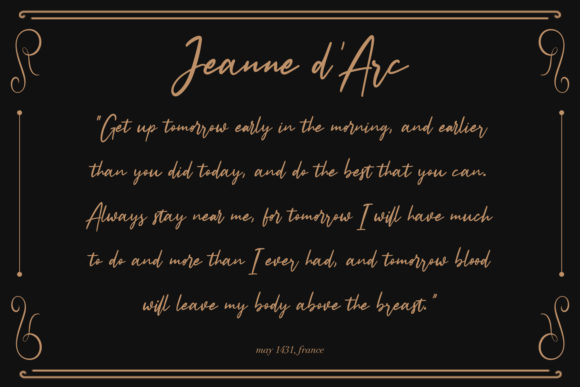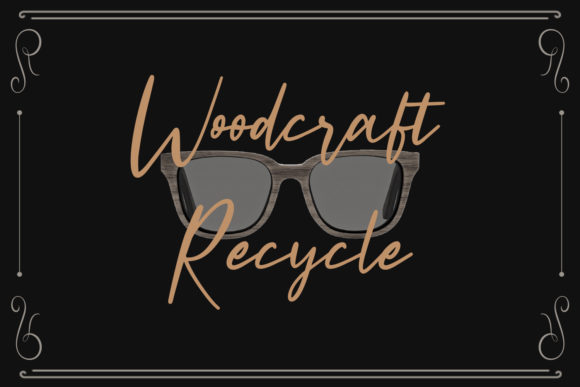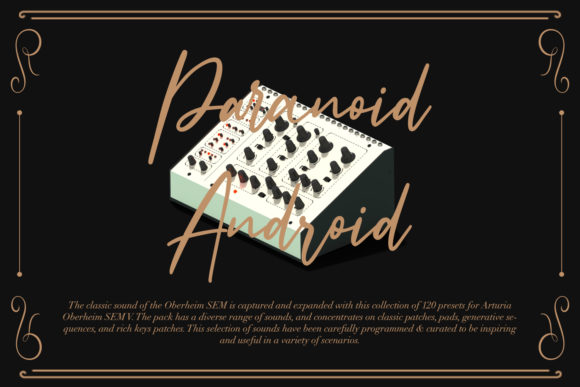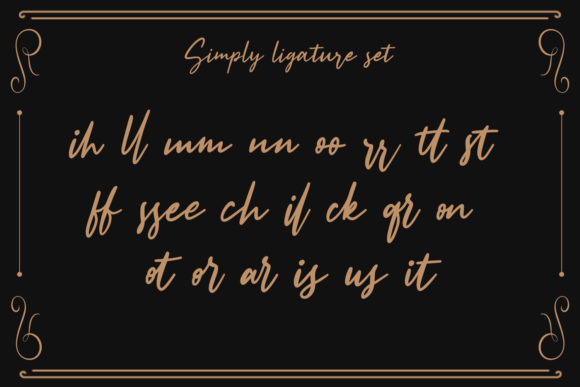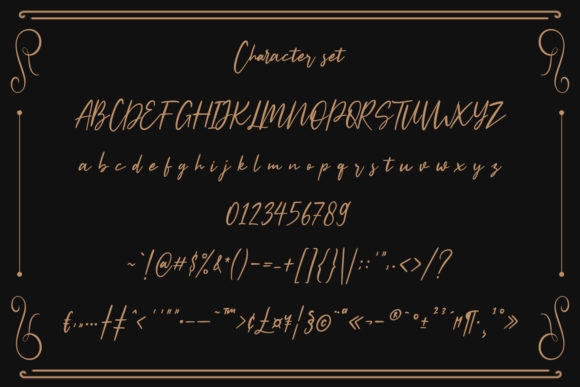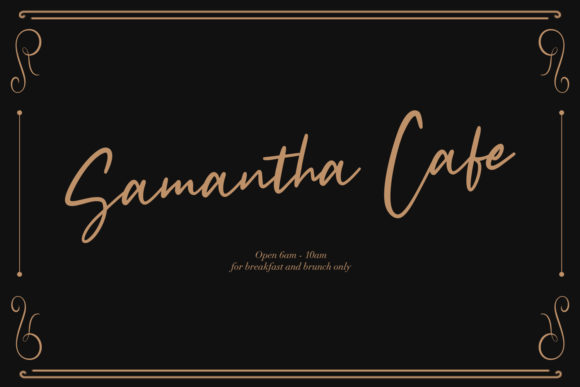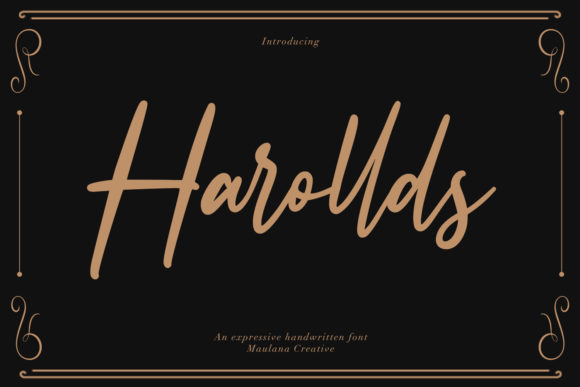
Discover the Elegance of Harollds Font: Elevate Your Designs with a Touch of Sophistication
In the world of typography, few fonts manage to convey the essence of elegance and sophistication as effectively as Harollds Font. This beautiful, handwritten font has captured the hearts of designers and crafters alike, and for good reason. With its flowing lines, stunning glyphs, and incredible versatility, Harollds Font is the perfect addition to any design project that requires a touch of class and refinement.
The Characteristics of Harollds Font
So, what makes Harollds Font so special? For starters, its varying baseline gives it a unique, organic feel that sets it apart from more traditional fonts. The smooth lines and gorgeous glyphs add to its elegance, creating a sense of fluidity and movement that is simply captivating. Additionally, Harollds Font features stunning alternates, allowing designers to add even more personality and flair to their work.
Perfect for Wedding and Greeting Card Designs
One of the most popular uses for Harollds Font is in wedding and greeting card designs. Its elegant, cursive script makes it perfect for wedding invitations, thank you cards, and other stationery items. The font’s sophisticated feel also makes it ideal for quotes, greeting cards, and other designs where a touch of refinement is desired.
Elevate Your Brand with Harollds Font
But Harollds Font isn’t just limited to personal projects. Its professional, polished feel also makes it a great choice for businesses looking to elevate their brand. Use Harollds Font to create stunning logos, business cards, and marketing materials that will set your company apart from the competition.
Why Designers and Crafters Love Harollds Font
So, why have designers and crafters fallen in love with Harollds Font? For one, its versatility is unmatched. Whether you’re working on a wedding invitation, a logo, or a business card, Harollds Font is the perfect choice. Its elegant feel and smooth lines also make it incredibly easy to read, even at small sizes.
Tips for Using Harollds Font in Your Designs
To get the most out of Harollds Font, here are a few tips to keep in mind:
- Experiment with different sizes and colors to find the perfect combination for your design.
- Use Harollds Font to add a touch of elegance to your designs, but don’t be afraid to mix it with other fonts for added interest.
- Take advantage of Harollds Font’s stunning alternates to add personality and flair to your work.
In conclusion, Harollds Font is a truly exceptional font that deserves a spot in every designer’s toolkit. Its elegant feel, smooth lines, and gorgeous glyphs make it perfect for a wide range of design projects, from wedding invitations and greeting cards to logos and business cards. Whether you’re a seasoned designer or a crafter looking to add a touch of sophistication to your work, Harollds Font is sure to impress.